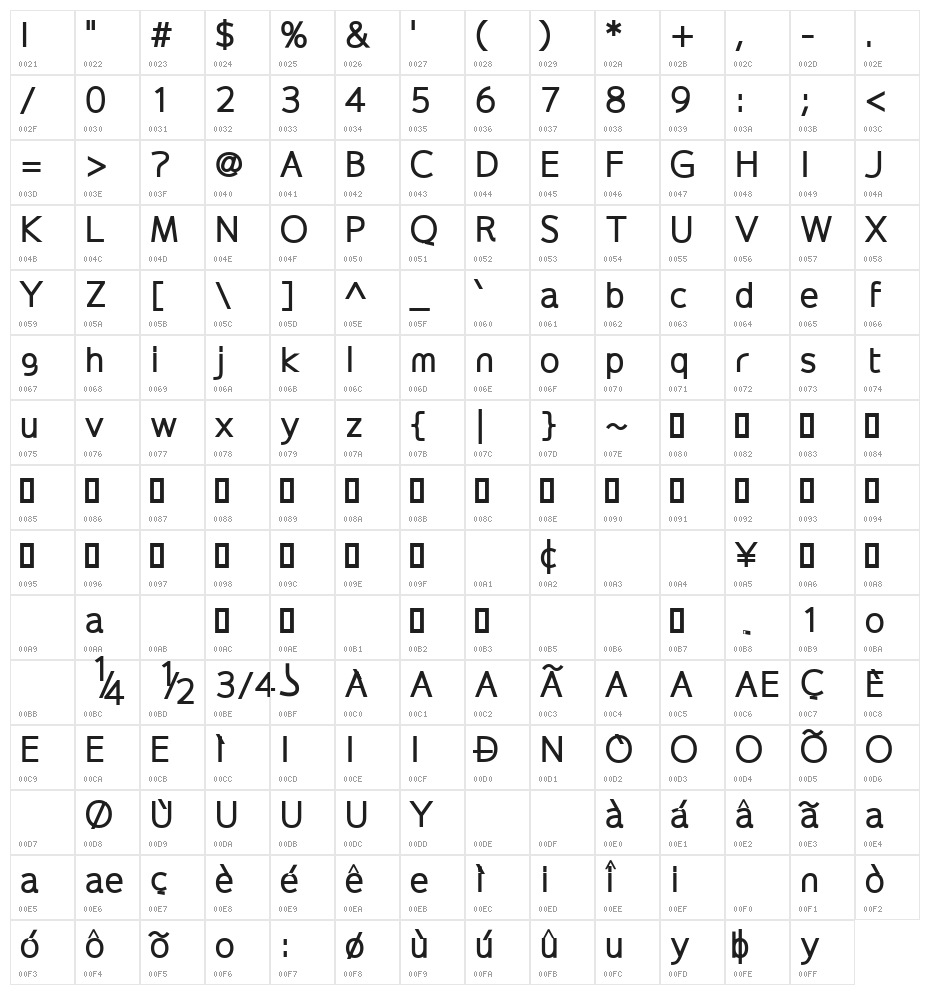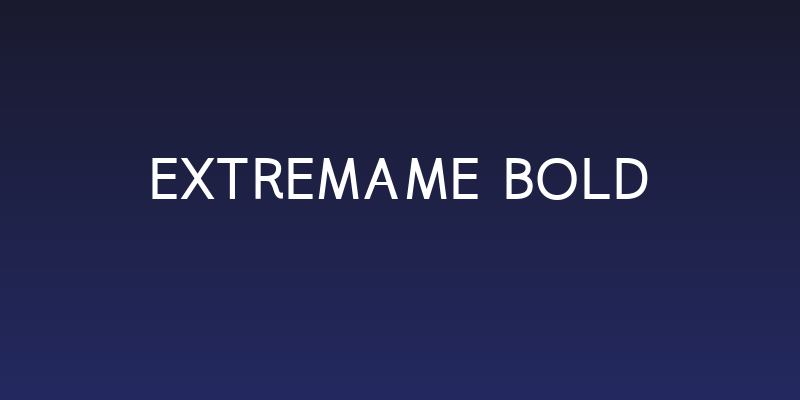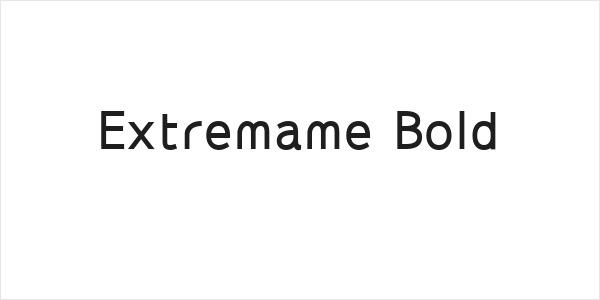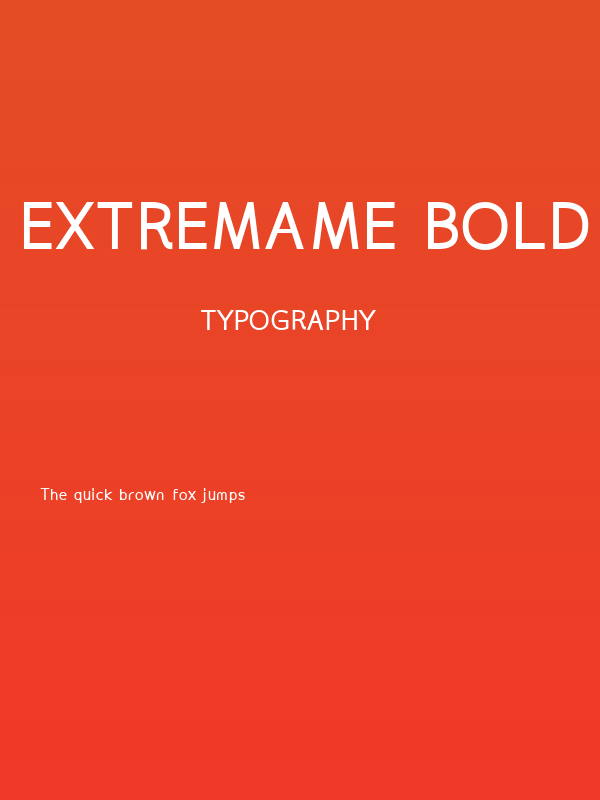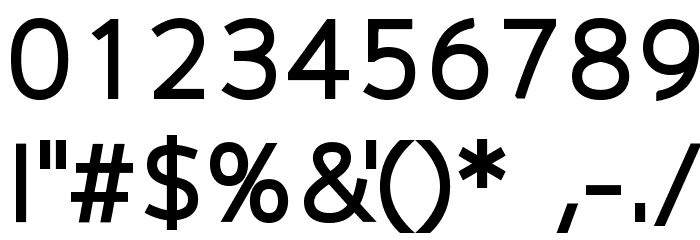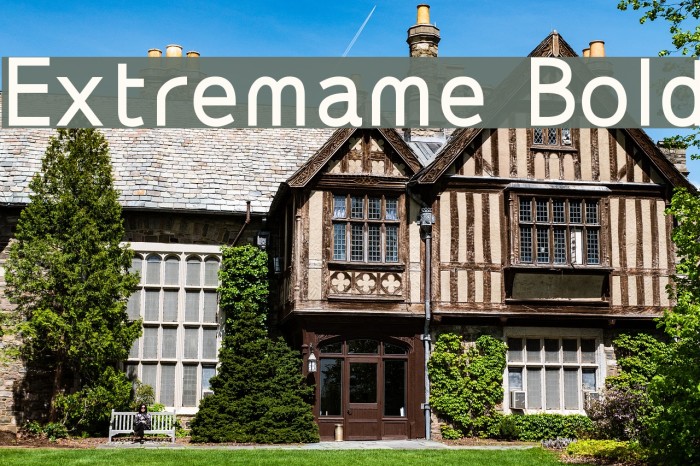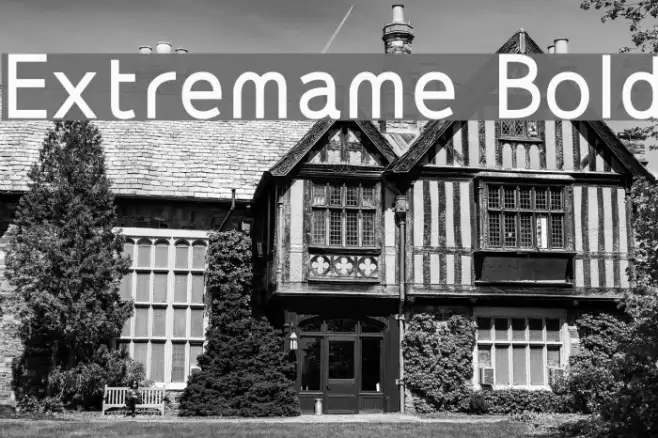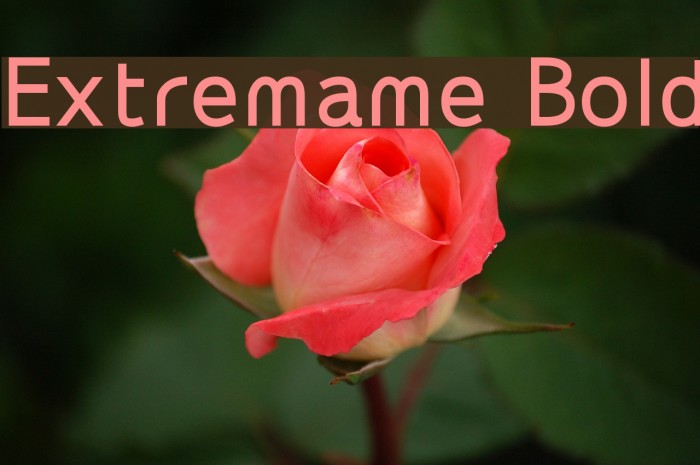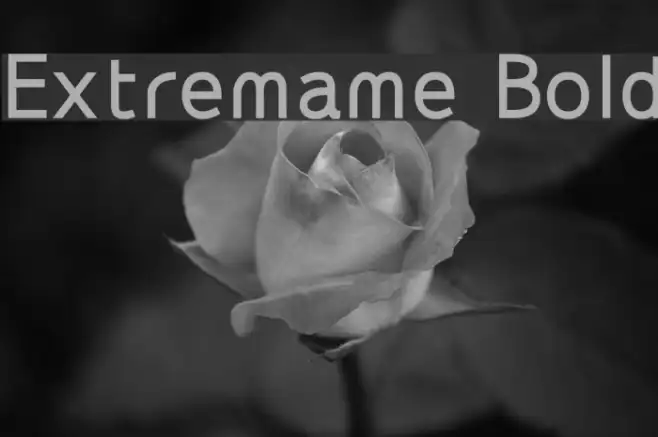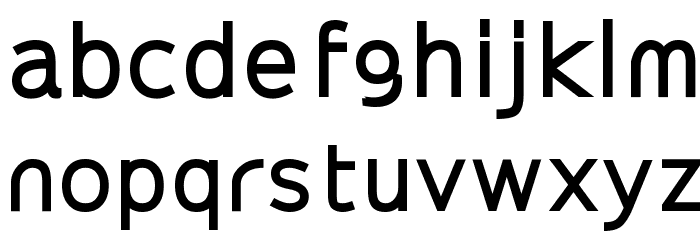
Extremame Bold Font
Extremame Bold Description
This font features a clean and modern sans-serif style with bold, uniform strokes that convey a sense of strength and clarity. The characters are well-proportioned, with a consistent weight that enhances readability. The uppercase and lowercase letters maintain a harmonious balance, while the numerals and special characters are designed to complement the overall aesthetic. The font's simplicity and boldness make it versatile for various design applications.